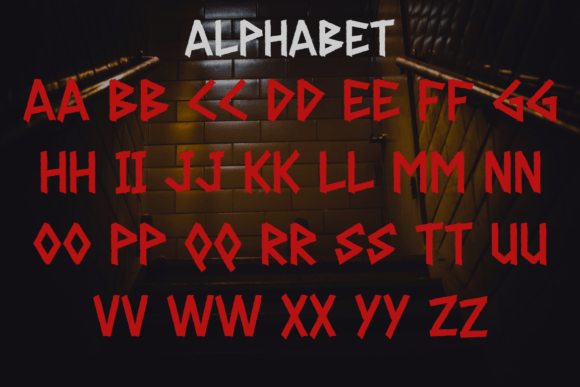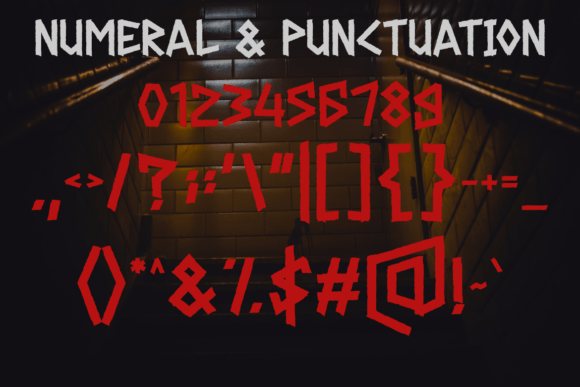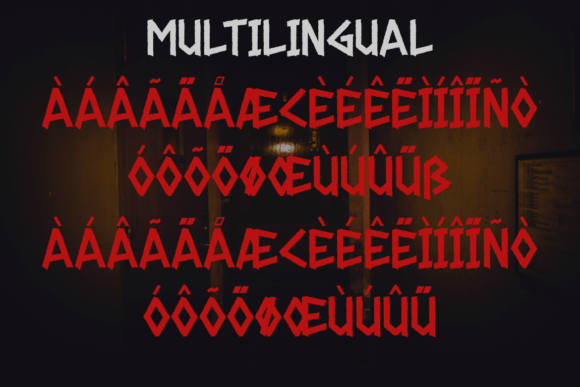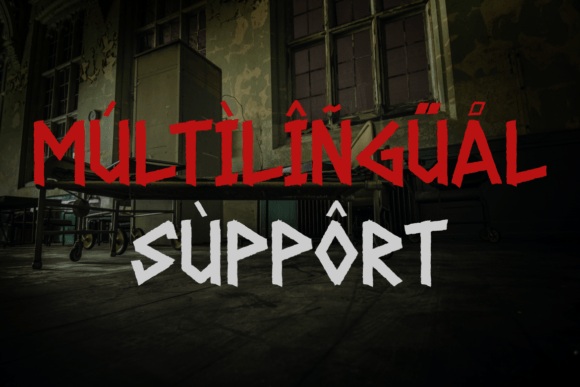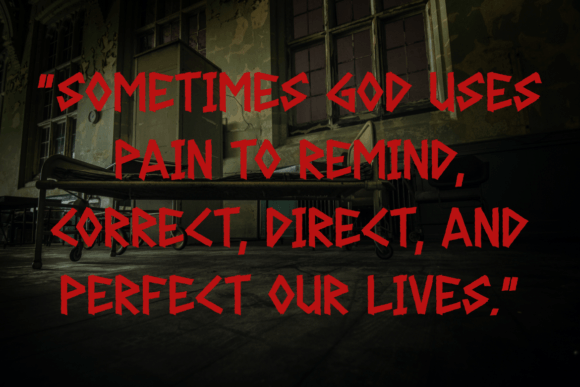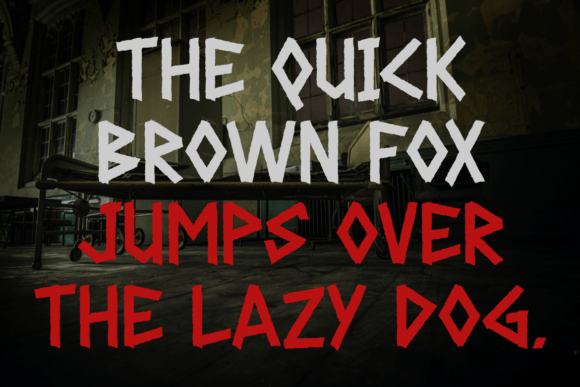
Introduction to Gerasol – Hardcore Font
**Gerasol** – Hardcore Font **Gerasol** Modern hardcore font is a type of lettering that emphasizes strength, boldness, and an aggressive aesthetic in its design.
Combining modern elements and influences from hardcore typography styles, this font showcases strong characteristics, sharp lines, and dynamic shapes **availlable** * otf * ttf * Uppercase * Lowercase * Multilingual.
Key Features of Gerasol – Hardcore Font